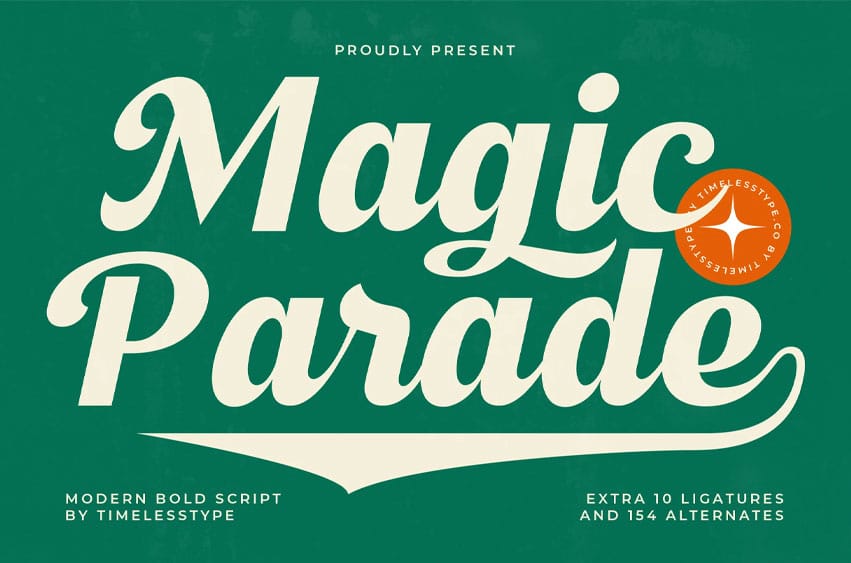
Magic Parade Font is a modern bold script font with smooth curves and energetic strokes, designed to add charm and confidence to any project. With stylish alternates and flowing ligatures, this typeface is perfect for branding, logos, packaging, invitations, posters, and social media graphics.
Its bold script style blends retro vibes with modern elegance, making Magic Parade a versatile font for both print and digital use.